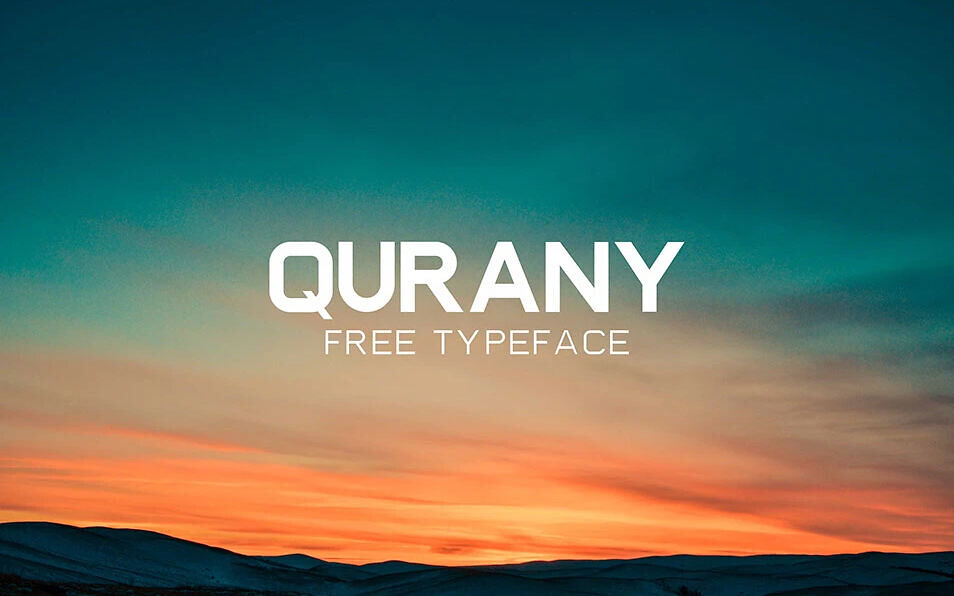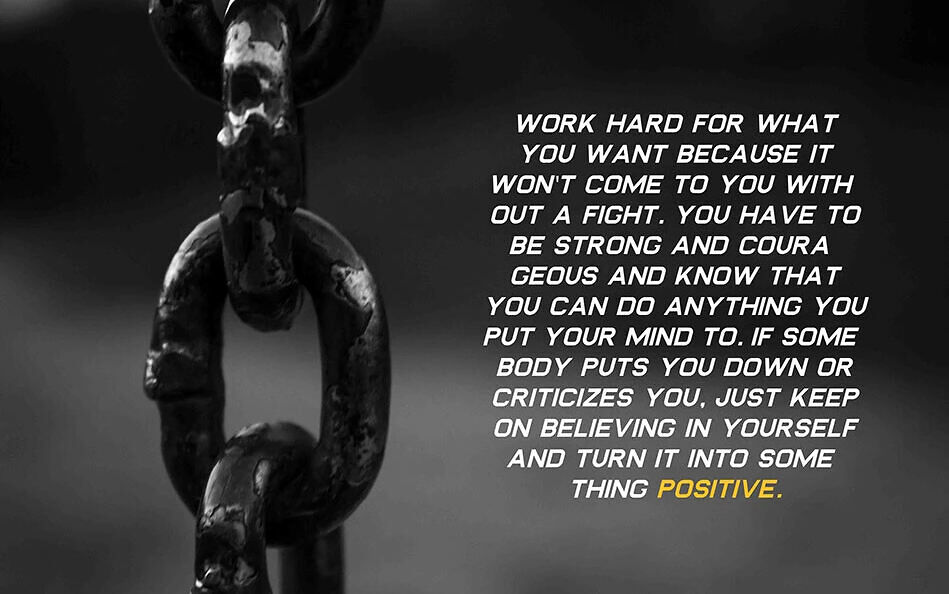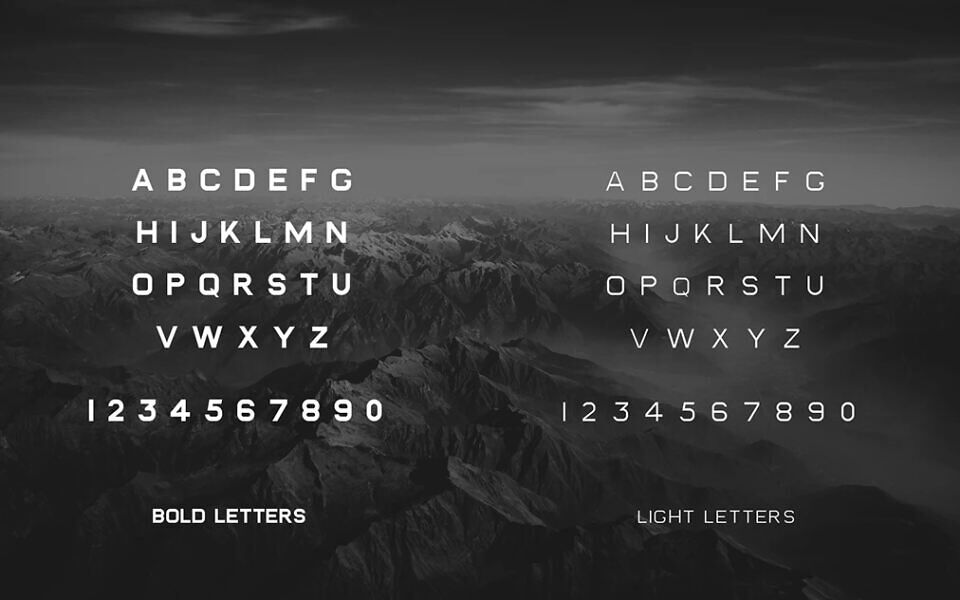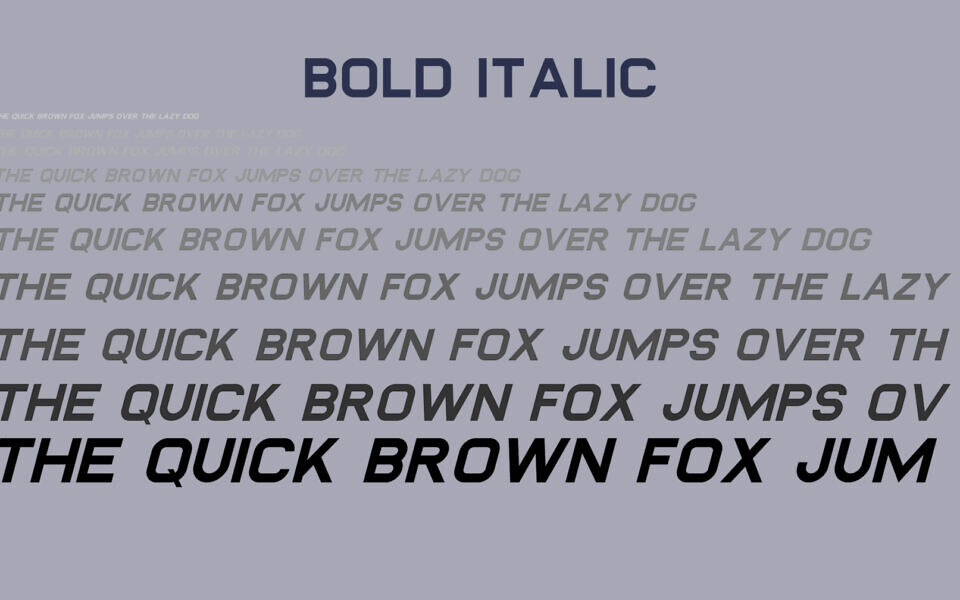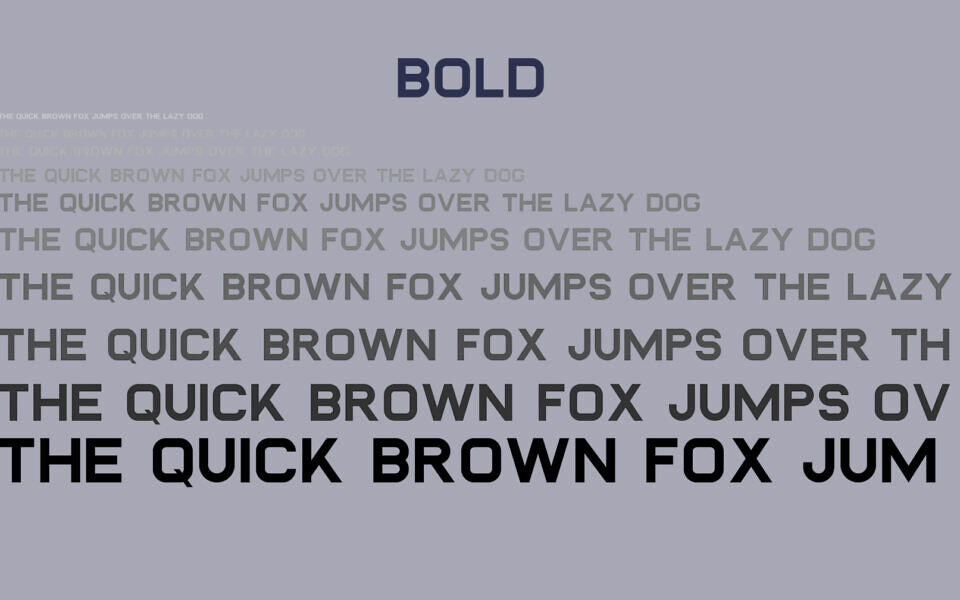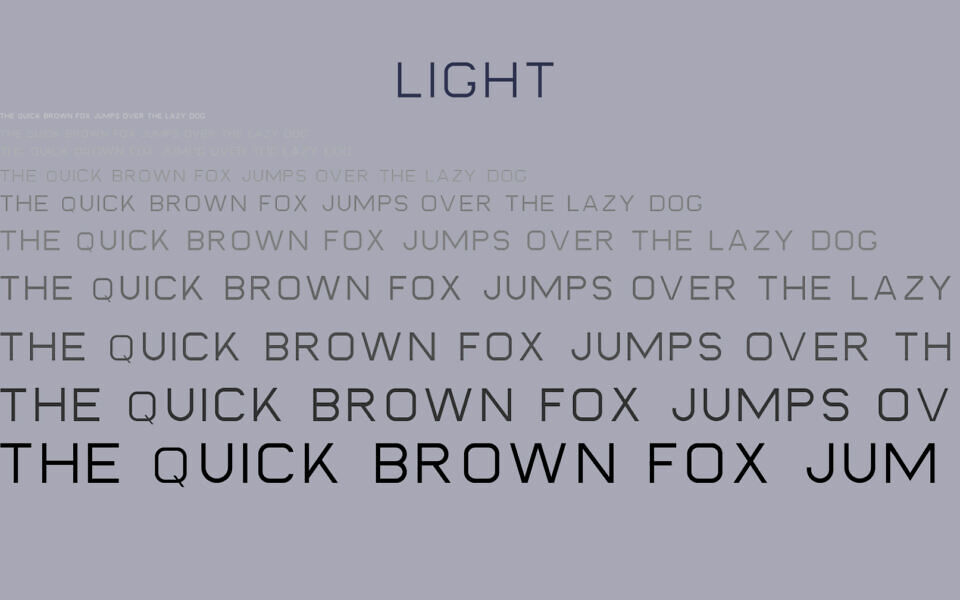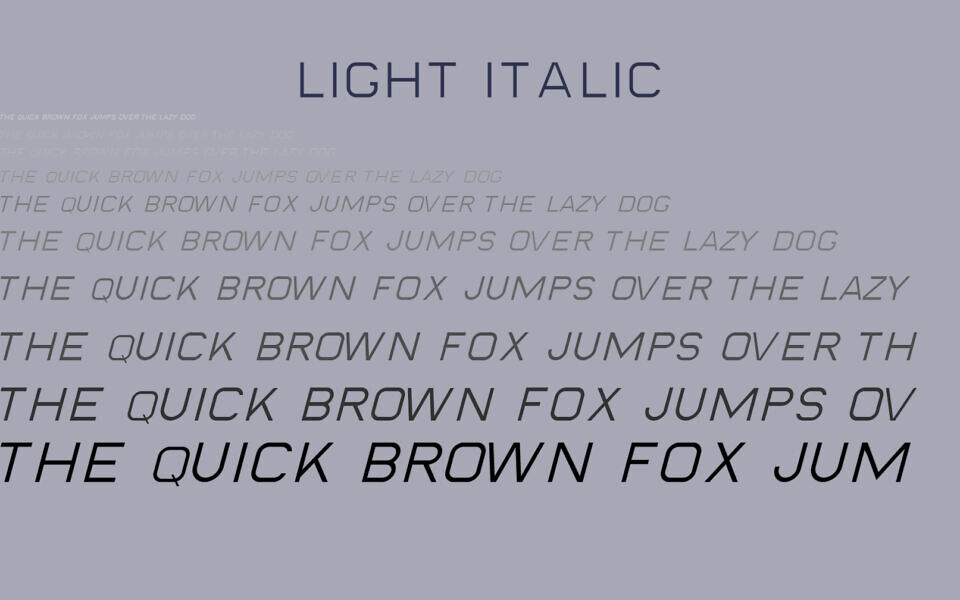
Qurany is a free modern, sans-serif typeface with a clean and versatile design, perfect for both digital and print projects. Available in bold, light, bold italic, and light italic styles, it offers flexibility for various creative needs.
Its sharp, minimalist letterforms ensure readability while adding a sleek, contemporary touch. Set against stunning scenic backdrops, Qurany’s bold weights exude strength, while its lighter variants bring elegance. Ideal for branding, posters, and motivational designs, this free typeface inspires creativity and professionalism in every application.